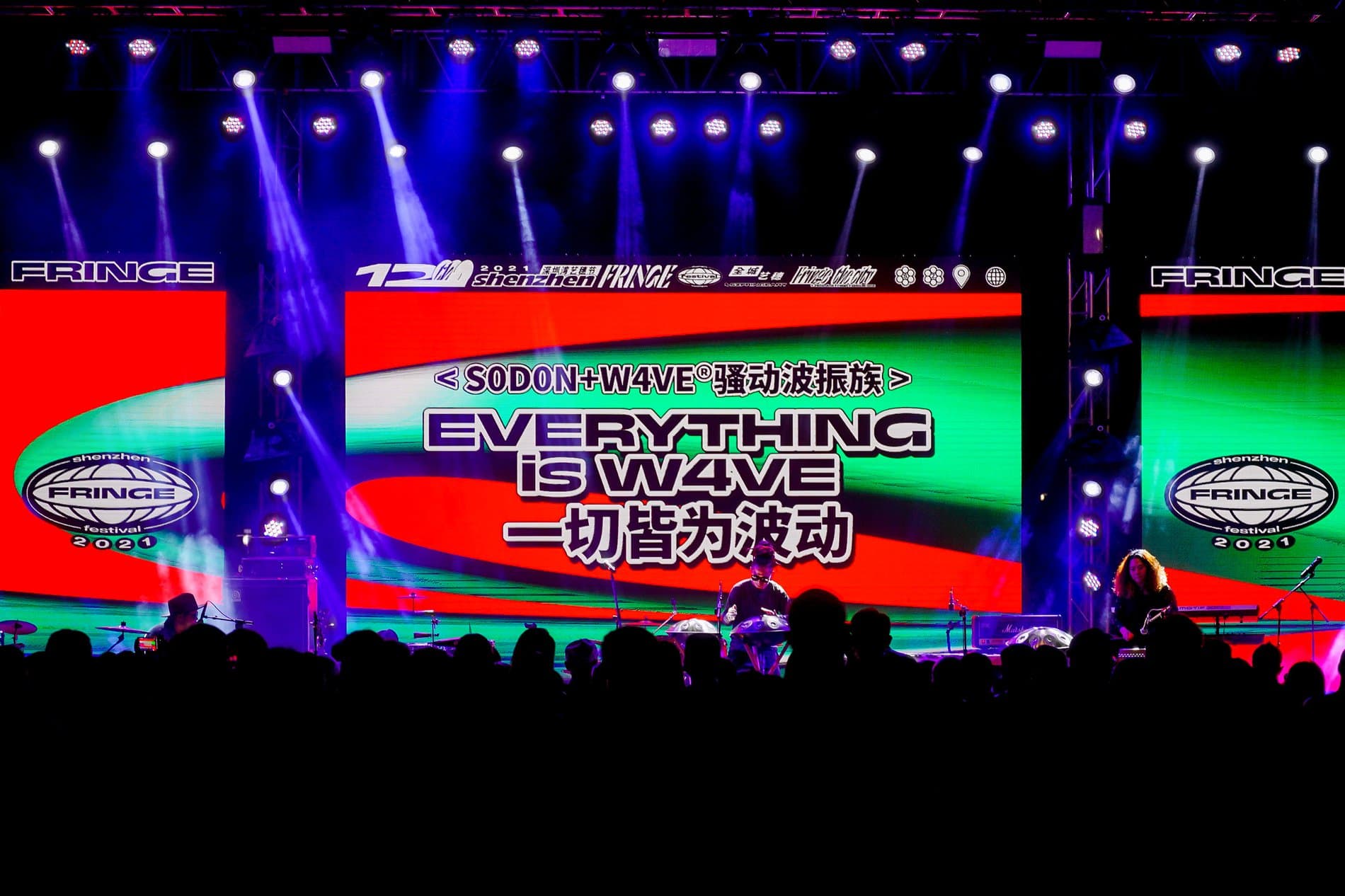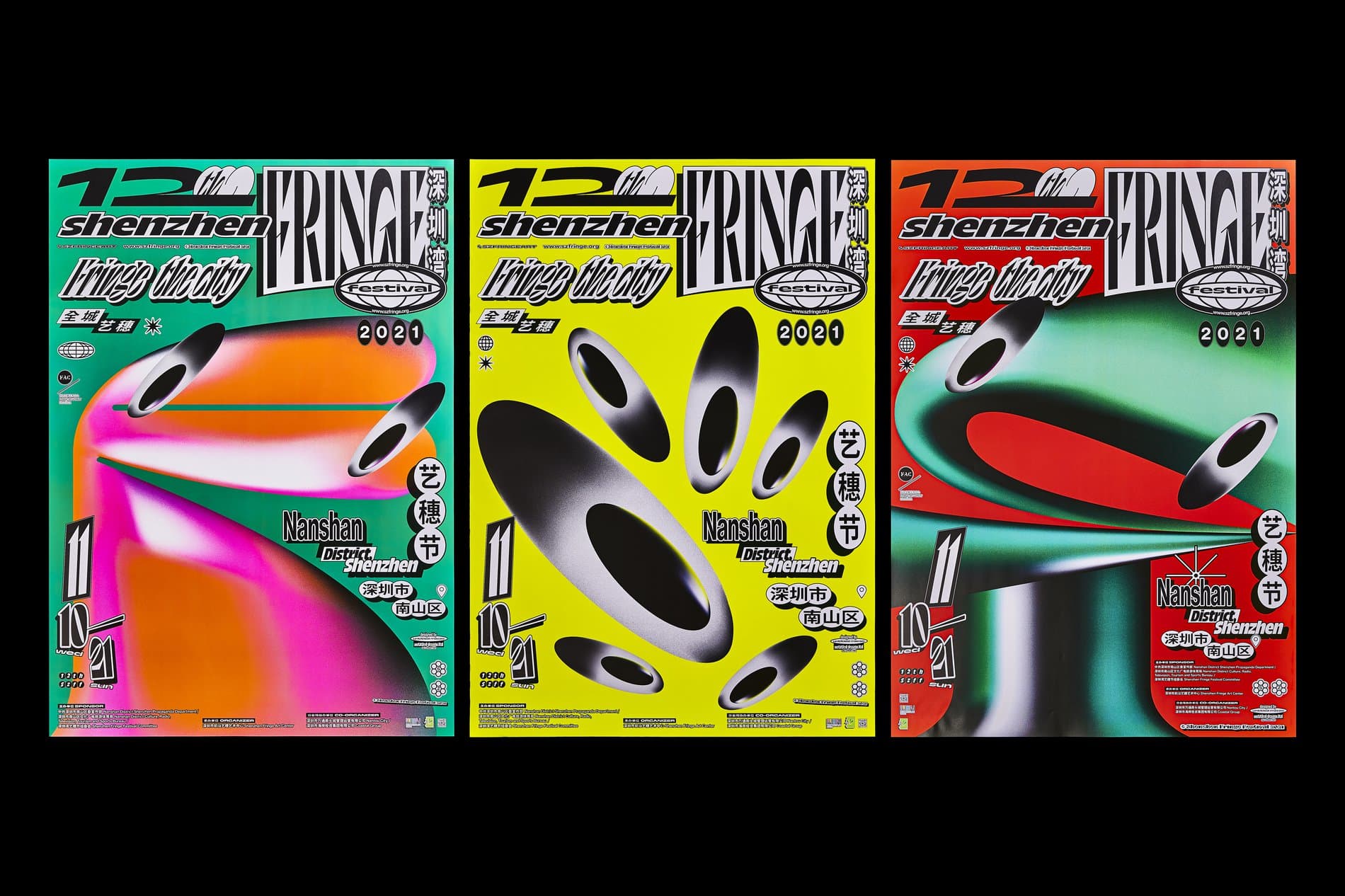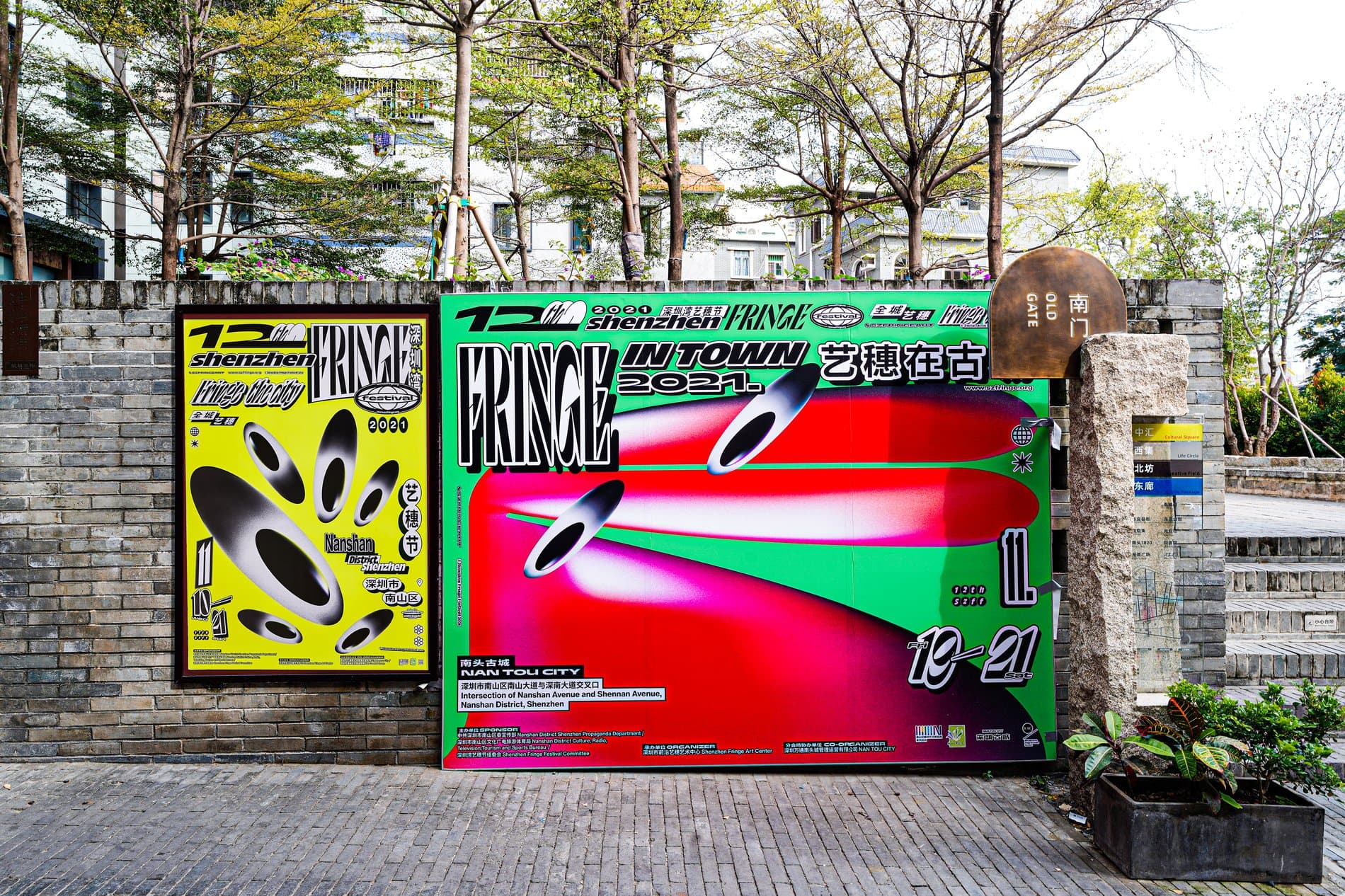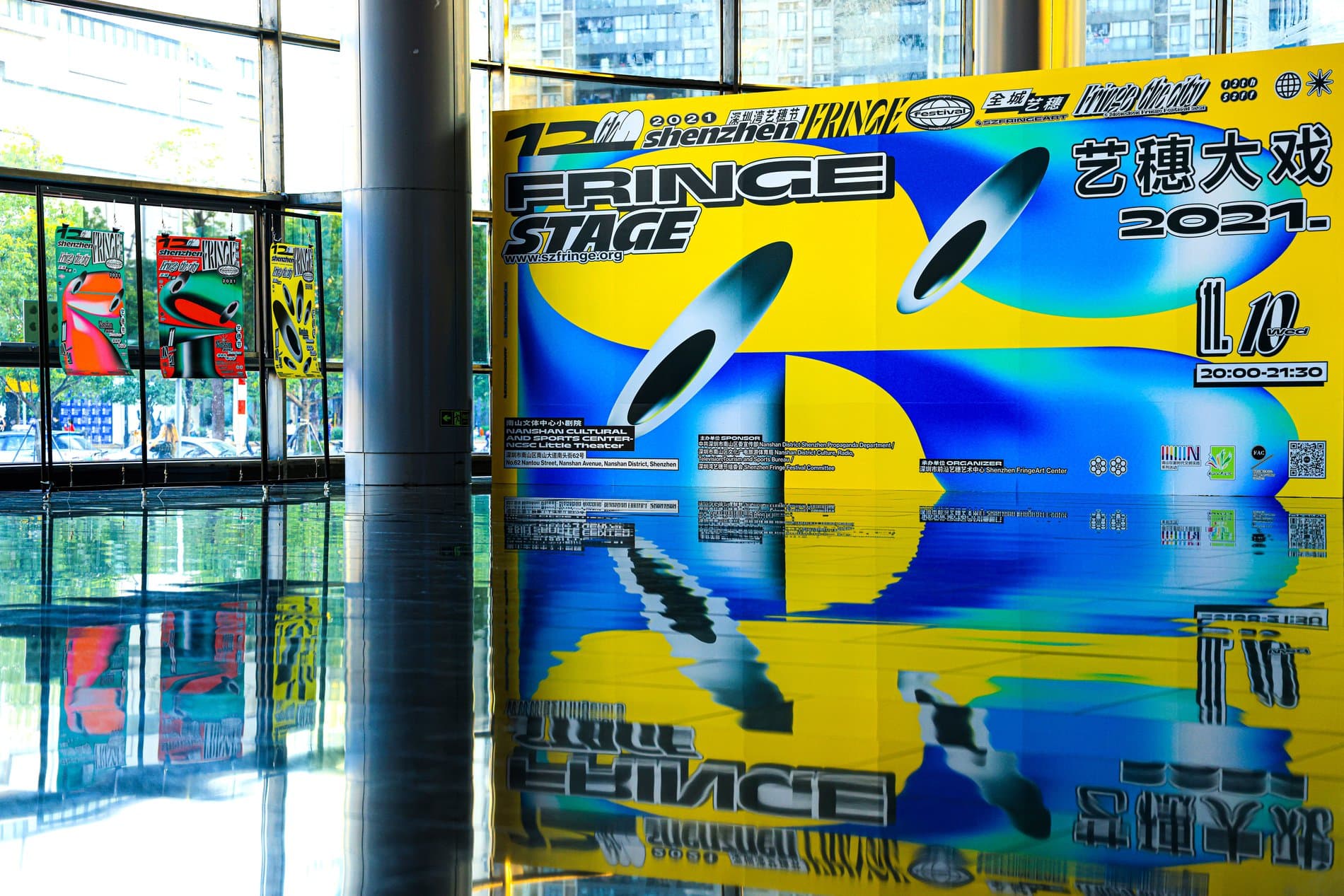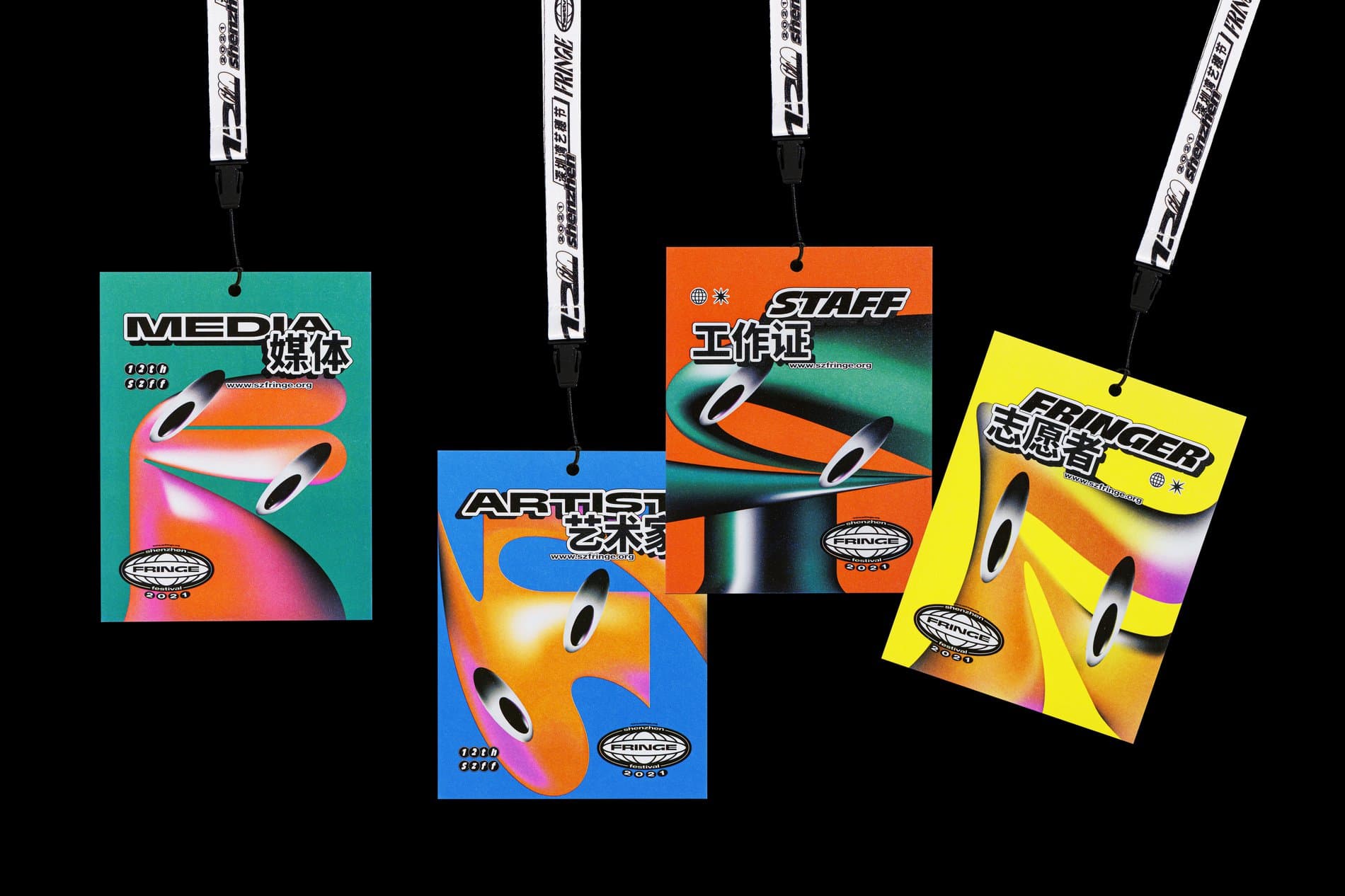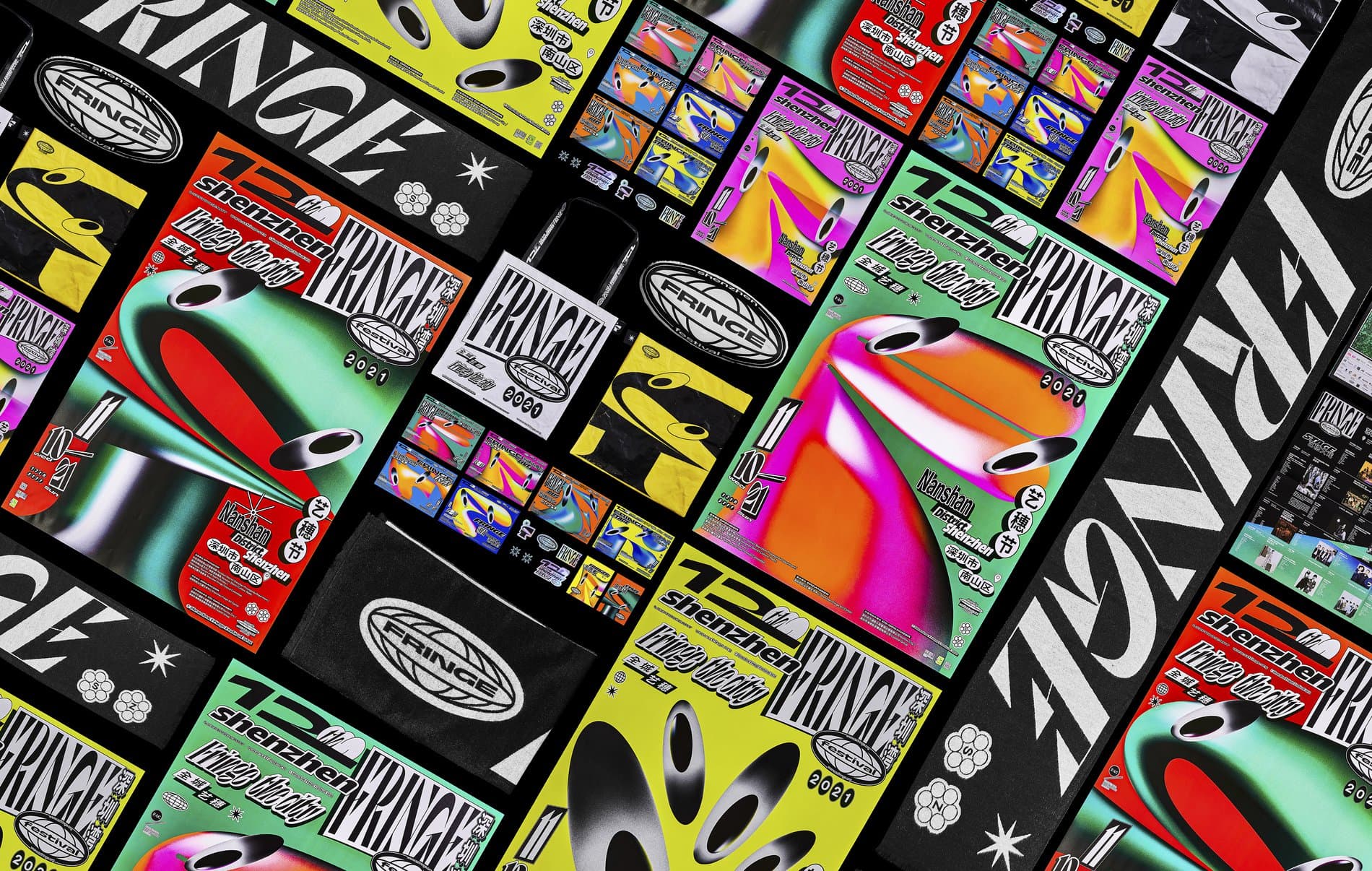
Untitled Macau has been a long time supporter of Sharp Type, having used our typefaces in a variety of projects since its inception in 2017. Led by founder Au Chon Hin, the studio has established itself as a pioneering design force in Macau. Their unabashedly bold use of color and figurative lines imbue the work with an instantly recognizable visual language and a distinctive aesthetic. Recently, the studio undertook the creation of the Shenzhen Fringe Festival's visual identity, which was centered around typography. Perhaps unsurprisingly, Untitled Macau featured Trois Mille (3000) as a core typographic element.
Trois Mille is expressive and energetic, lending its bold charm to the festival's visual identity. It notably and beautifully coexists alongside the Chinese characters used, denoting the city's East-West cultural dynamics, colonial past, and global-facing present. Whether taken at a glance or with perusal, the festival's graphic design possesses a controlled chaos and deliberate density -- perhaps mirroring Macau itself, which is the most densely populated region in the world.
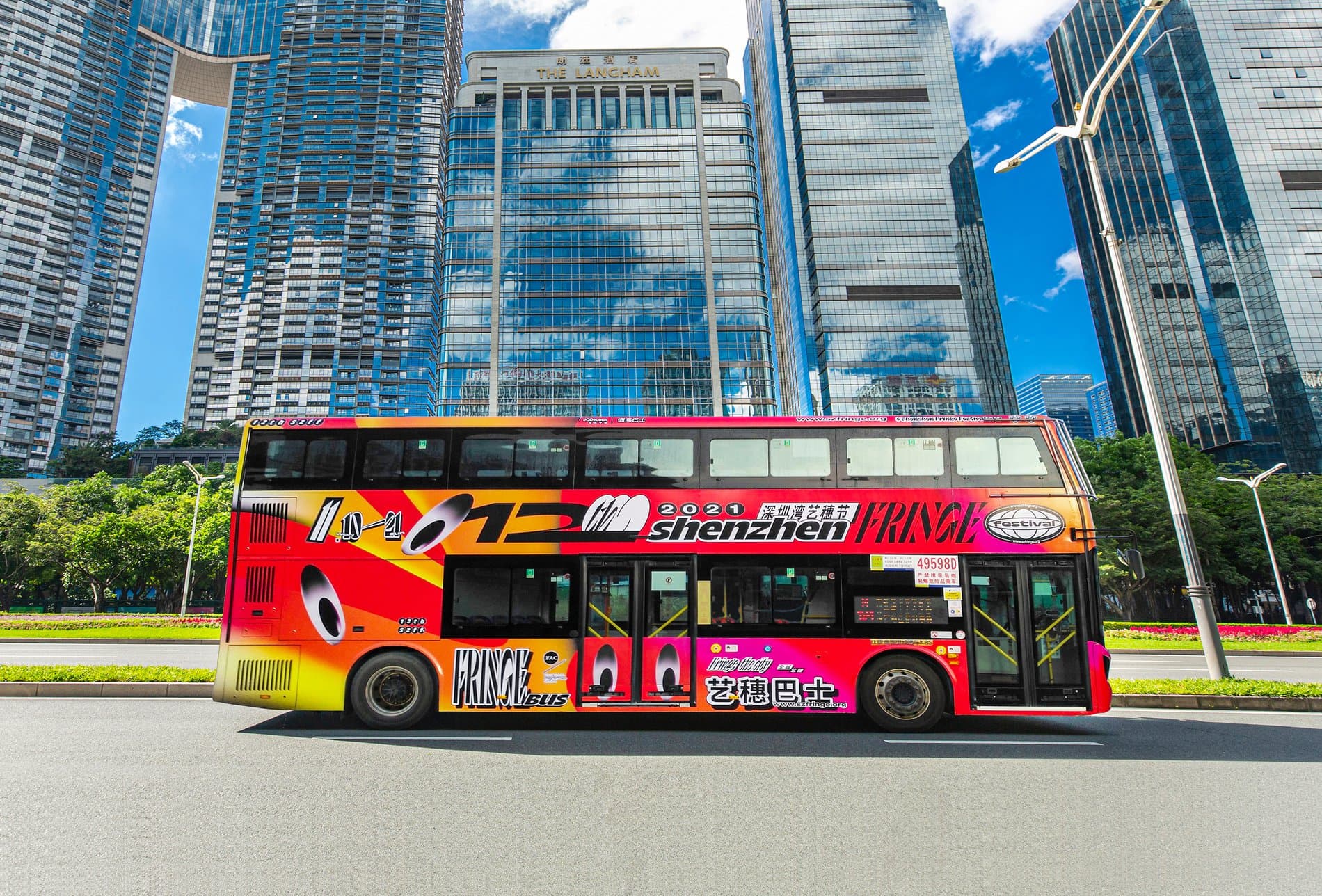
The original Fringe Festival took place in Edinburgh in 1947, soon after the end of World War II. Eight theater troupes congregated on the fringes of a festival to which they had not been invited and spontaneously began their own event. This set a precedent for the following years, and then decades. Today, it proclaims itself the "world's largest art fair," taking place over three weeks each August and featuring participants from every genre of art. The Shenzhen Fringe Festival had its inaugural year in 2010 and is loosely based on the Edinburgh original. With its stylistic verve, Untitled Macau's work at this year's Shenzhen Fringe Festival evokes the anarchist spirit of its British forebear, but their maximalist design execution needs no context. Similarly, Trois Mille's dynamic beauty provides support for the rest of the visual identity, but it, too, exists confidently on its own, in any context.